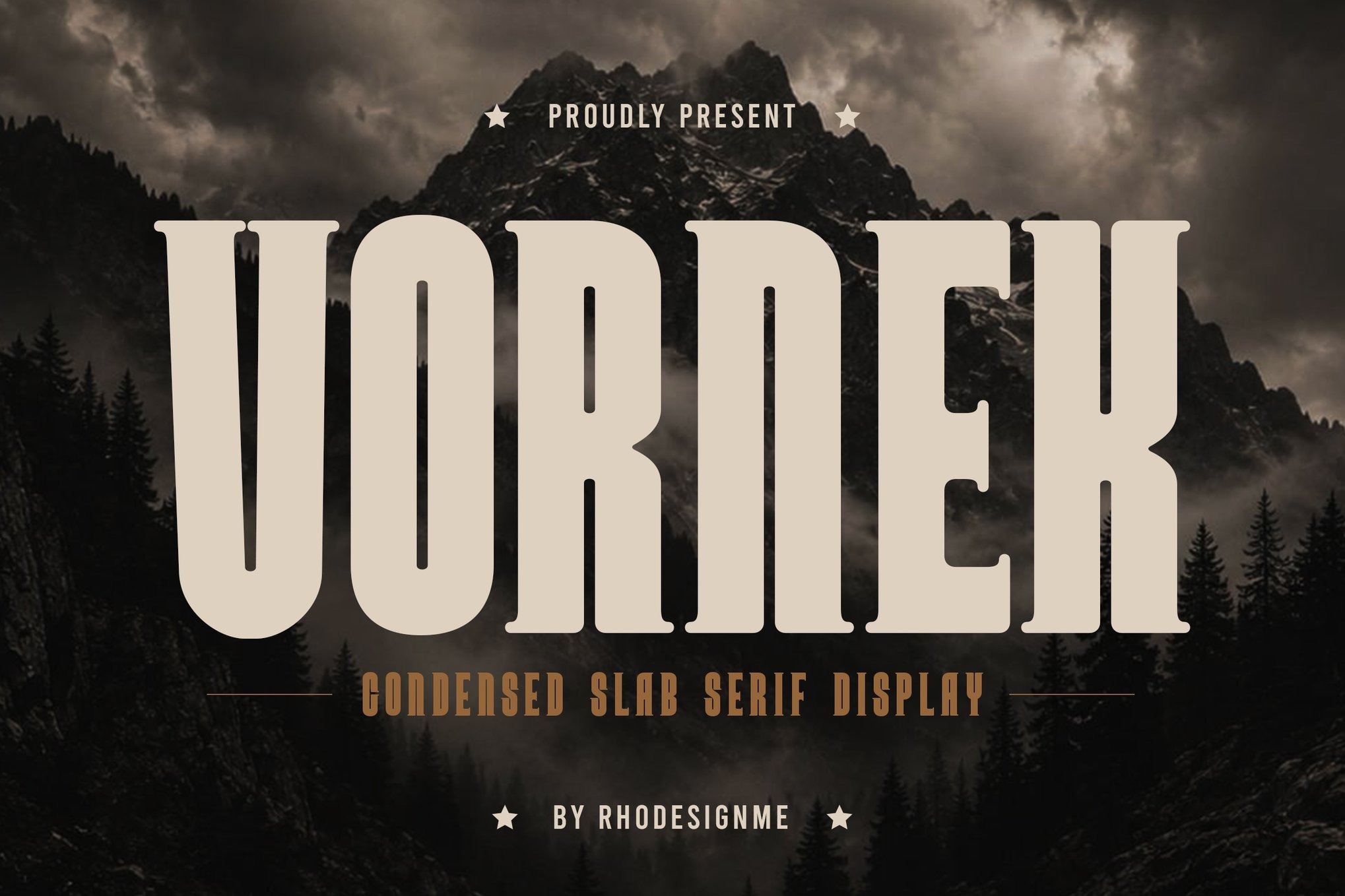
Vornek – Condensed Slab Serif Font
Vornek – Condensed Slab Serif Font is a professionally designed typeface that delivers clarity, structure, and consistent performance across various design applications. Vornek is a powerful condensed slab serif display typeface engineered for bold statements and commanding visual authority. Merging thick, tall letterforms with sharp, subtle slab serifs and vintage-inspired details, this font brings a strong aesthetic confidence and timeless ruggedness to any creative layout.
With its narrow proportions, high-impact density, and unique decorative character nuances, Vornek excels in outdoor adventure branding, vintage badge emblems, product packaging, cinema posters, event headlines, and editorial cover designs. The font includes complete uppercase and lowercase sets, custom ligatures, and broad multilingual support to make your typography stand out effortlessly.
Vornek is crafted to help designers build unforgettable visual identities with strong character. Whether you are aiming for a classic vintage aesthetic or a modern rugged display, this typeface delivers strength and clarity in every glyph.
Features
Uppercase Characters
Lowercase Characters
Condensed Slab Serif Display Style
Custom Ligatures & Alternate Forms
Complete Numeral & Currency Symbols
Comprehensive Multilingual Support